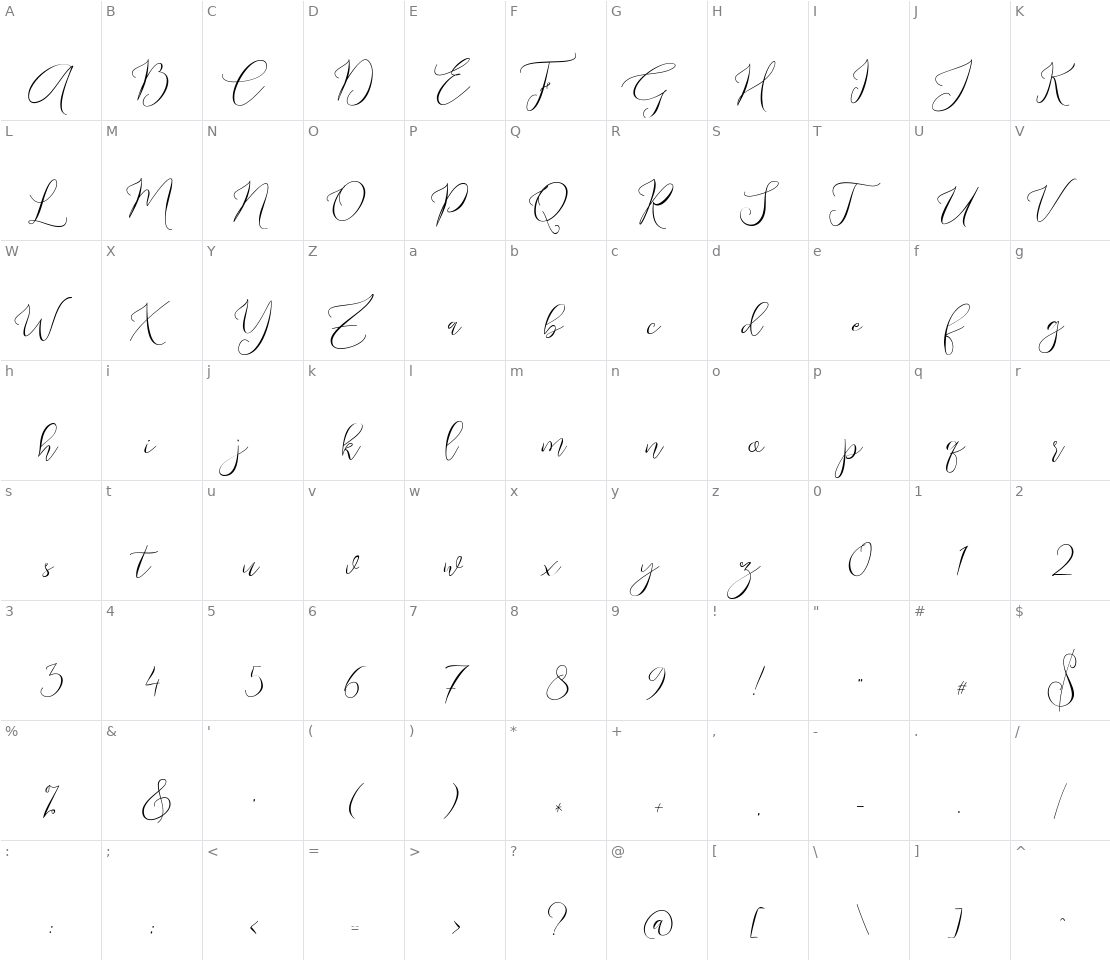
Endless
Endless is a delicate calligraphic face by Rachma BT with thin, flowing strokes that carry a distinctly romantic sensibility. The letterforms feel hand-penned and feminine, with graceful connections and airy proportions that keep things refined without becoming overly ornate. A natural choice for wedding invitations, editorial details, and branding where elegance needs to feel personal rather than stiff.